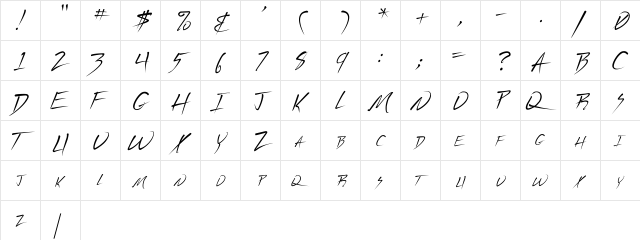
Schnell Regular
Design Context for Schnell Typeface
Schnell is a composed and adaptable typeface that performs quietly and consistently across a wide range of design contexts.